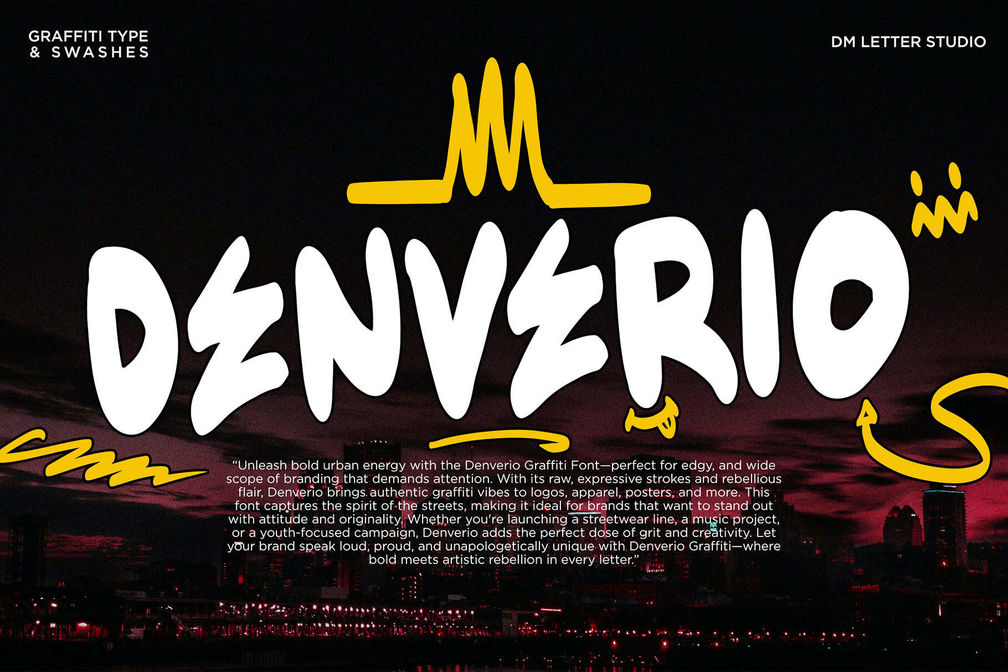
Denverio
Denverio – Graffiti Type and Swashes
Denverio is a bold, street-inspired graffiti font that oozes urban attitude and untamed energy. With chunky, expressive strokes and a rebellious personality, Denverio brings raw street culture into logos, apparel, posters, and branding. The font comes with wild swashes that add even more grit and flair to your design, perfect for those who want to make a statement that’s loud, proud, and unforgettable.
Authentic Graffiti Style: Raw, edgy letterforms inspired by real street art culture.
Dynamic Swashes: Bonus swashes to boost motion, impact, and style in any layout.
High-Impact Visuals: Perfect for grabbing attention and conveying creative rebellion.
Ideal For: Streetwear branding, music covers, skate culture, YouTube thumbnails, posters, album art, and youth-focused campaigns.